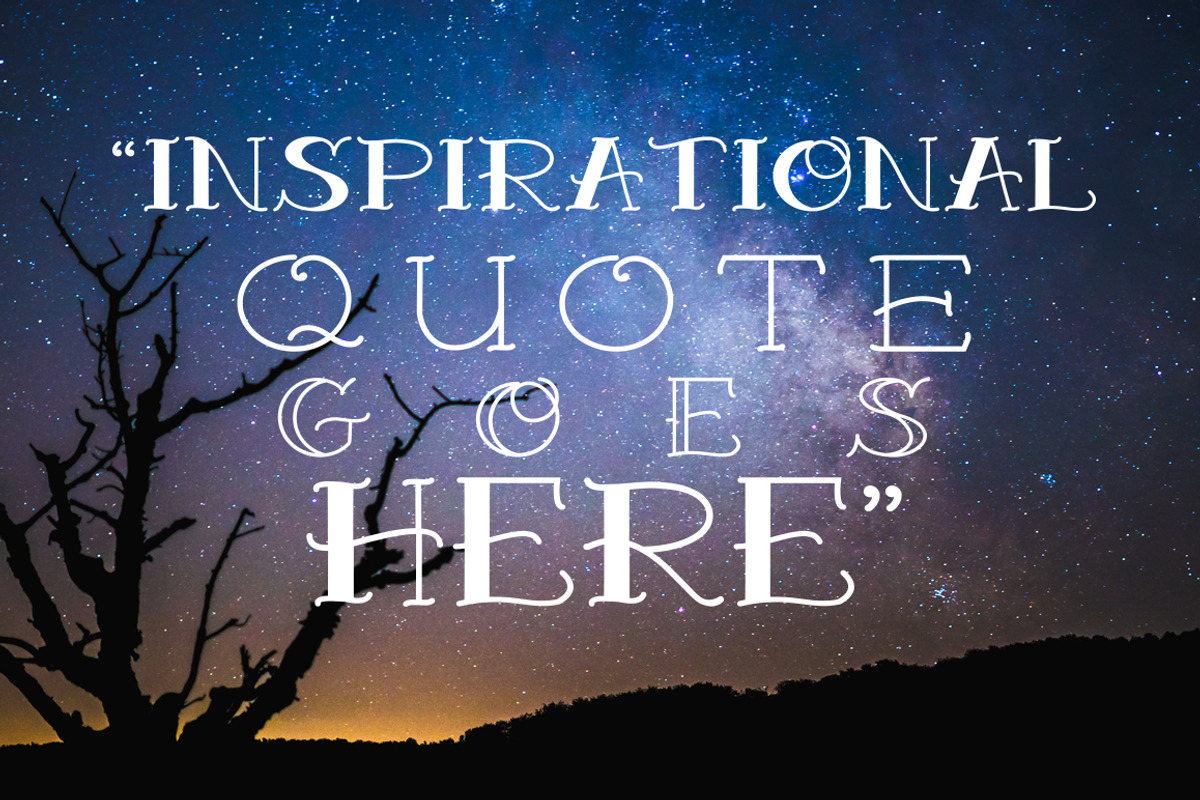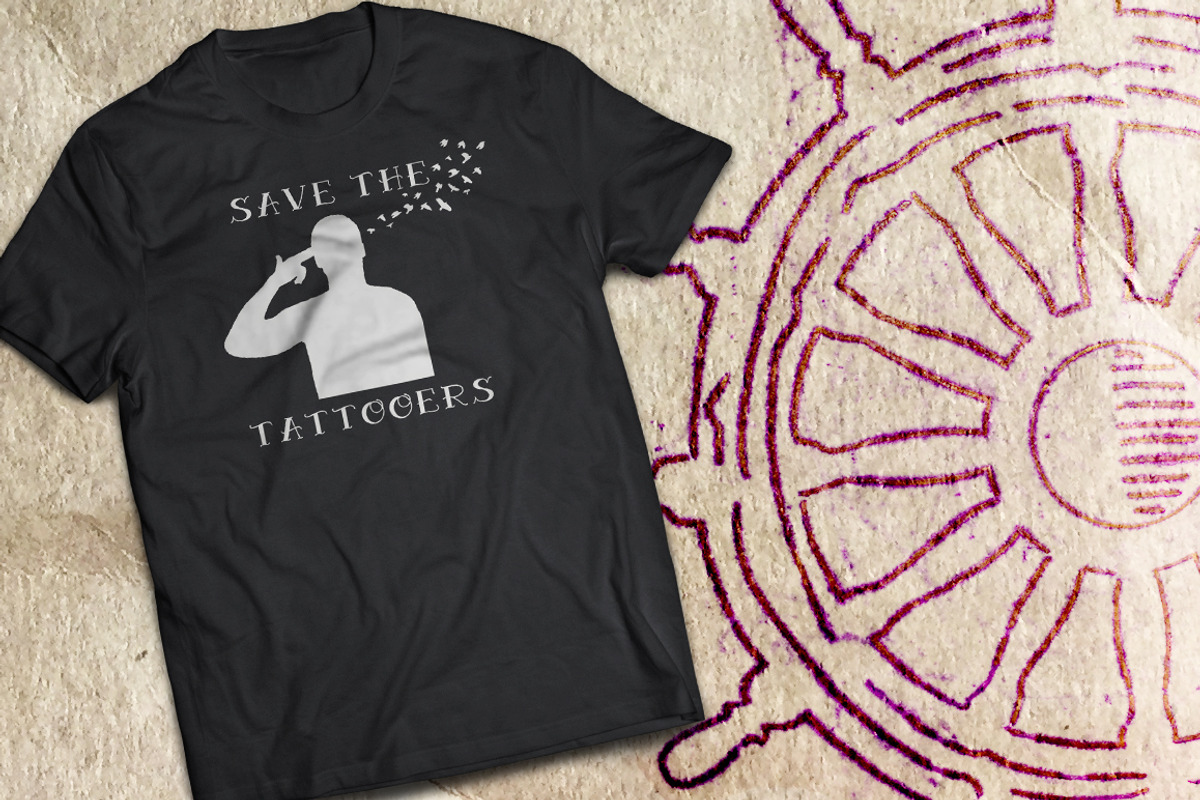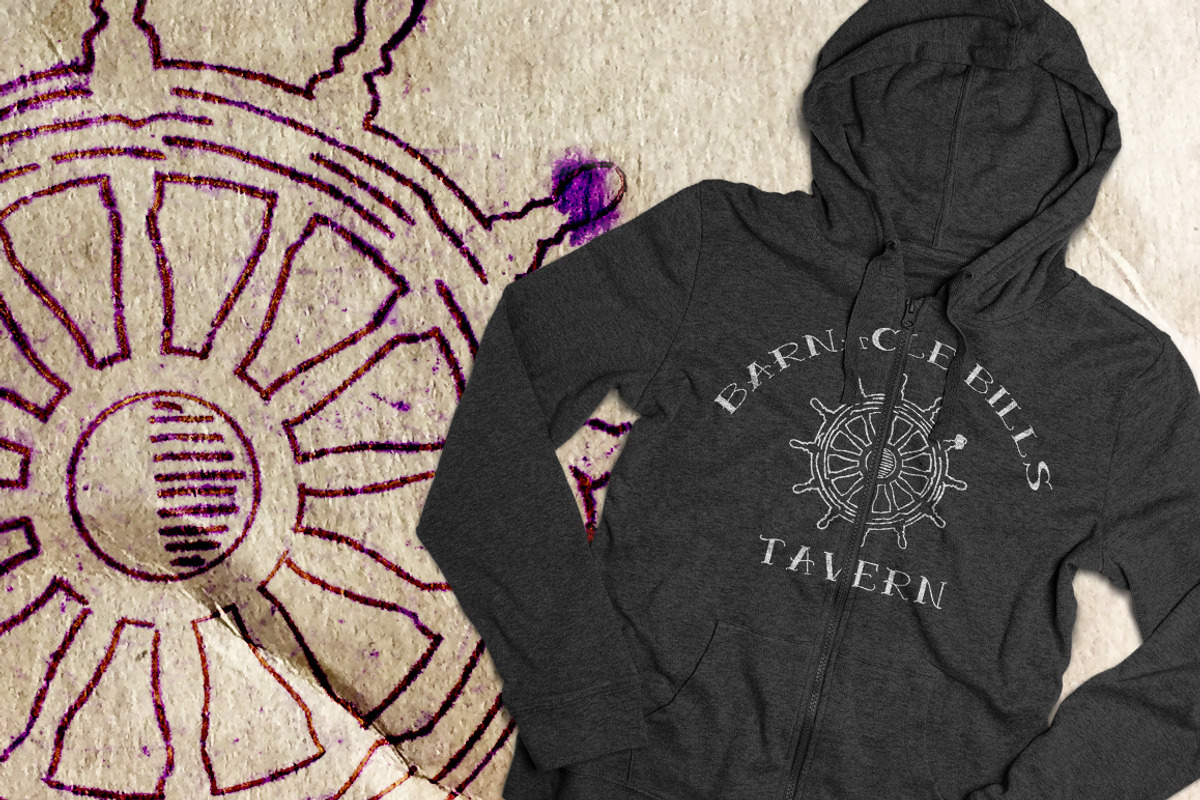
Pike Traditional Tattoo Font
Classic double line traditional tattoo font in two variations. Included in this package are two variations: a black version and an open version suitable for tattooing. This style font has been used in tattooing all the way back to the early 1900's (and probably further still). this is probably the most recognized tattoo lettering that there is, there have been many versions done out there but this is the one i learned to draw in my apprenticeship to become a tattooer so I will be brave and say this is the only "correct" version you can get your hands on.
Pike Traditional Tattoo Font by Aloha Bhava fits naturally into Branding, posters, packaging, typography.